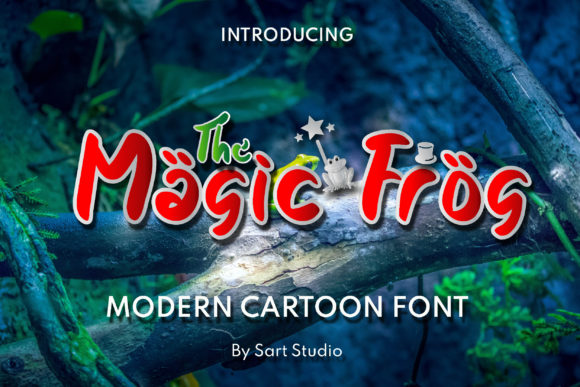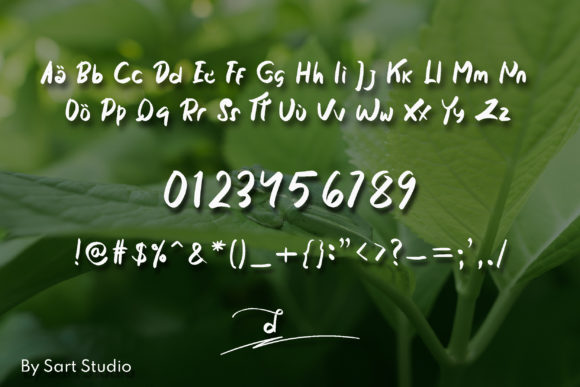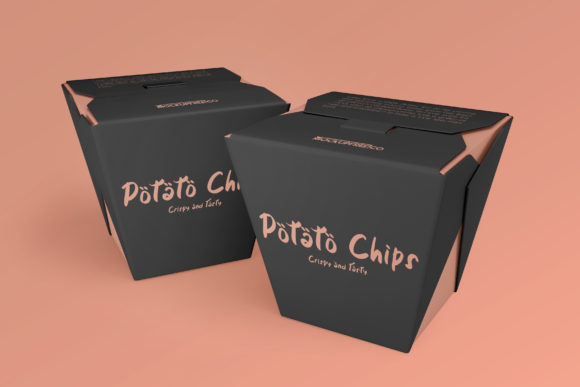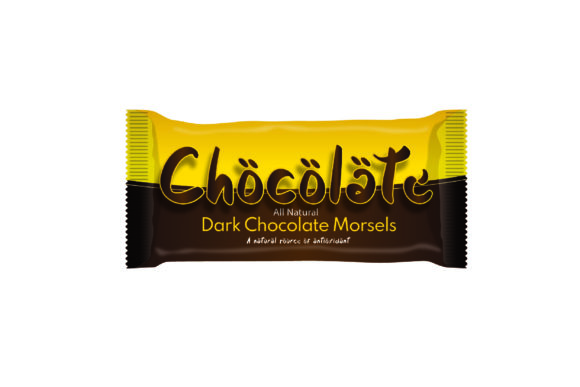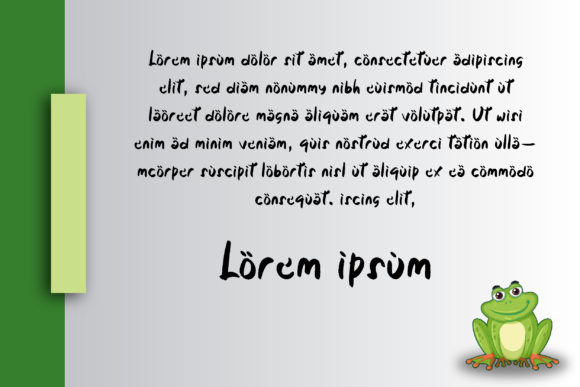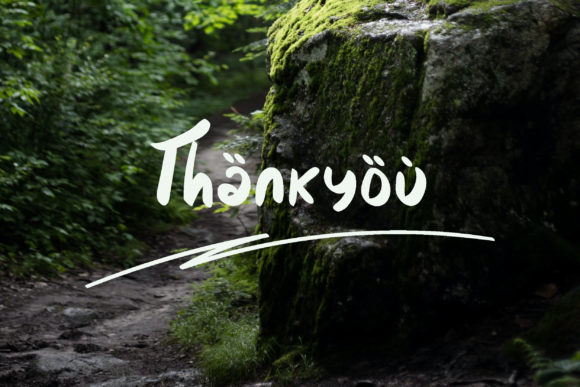
The Magic Frog Font
About The Magic Frog Font
The Magic Frog embodies fun, quirkiness and authenticity. This enchanting handwritten font will turn any creative idea into a true standout.